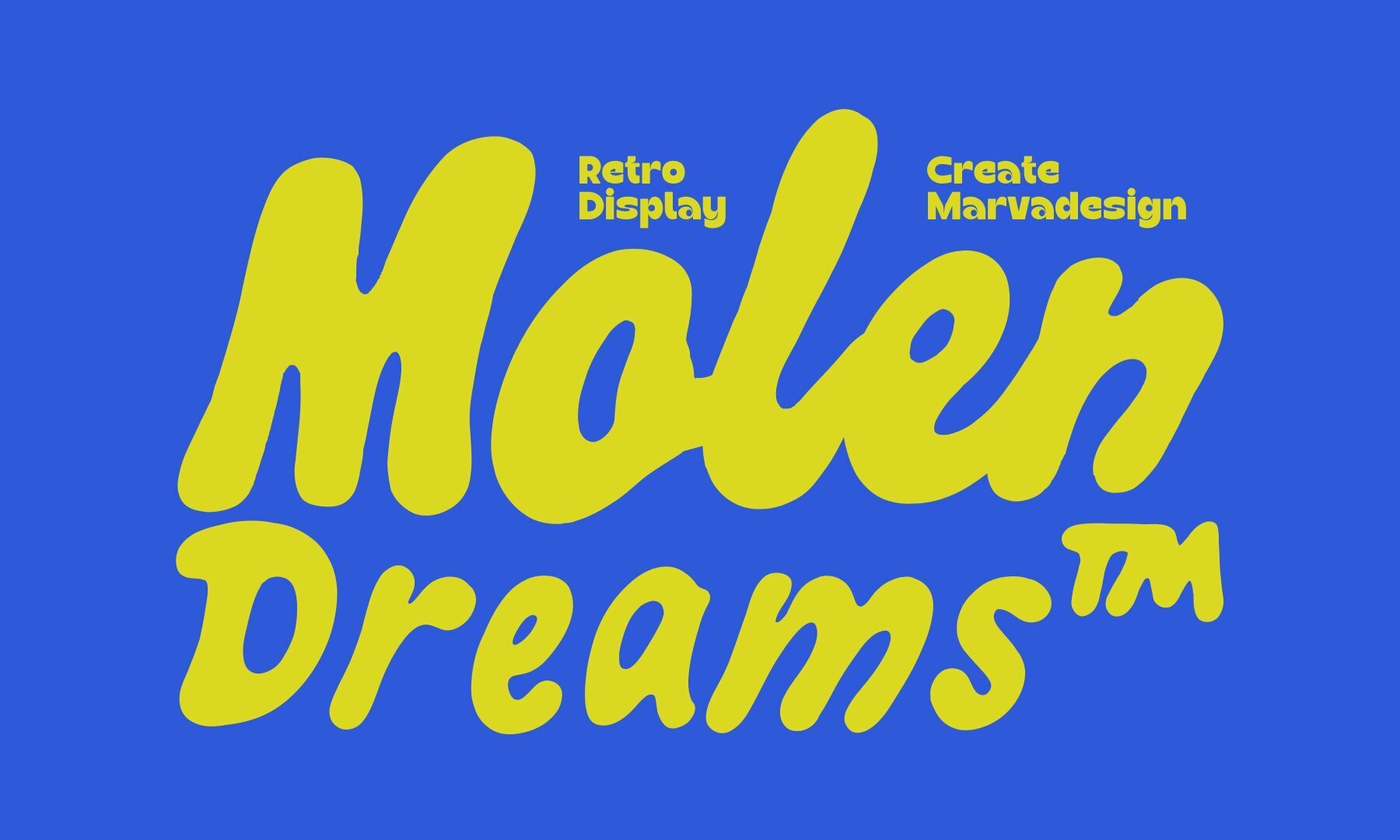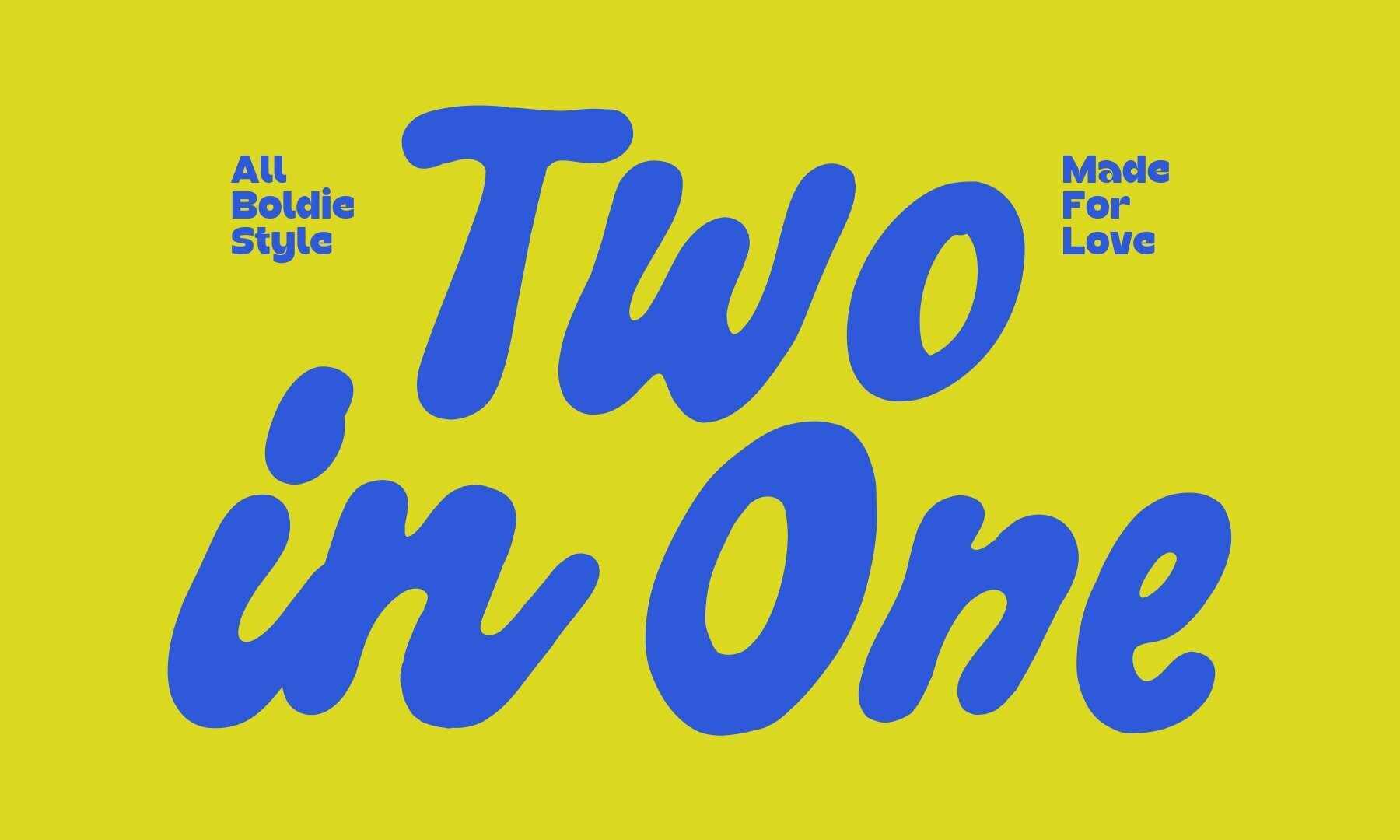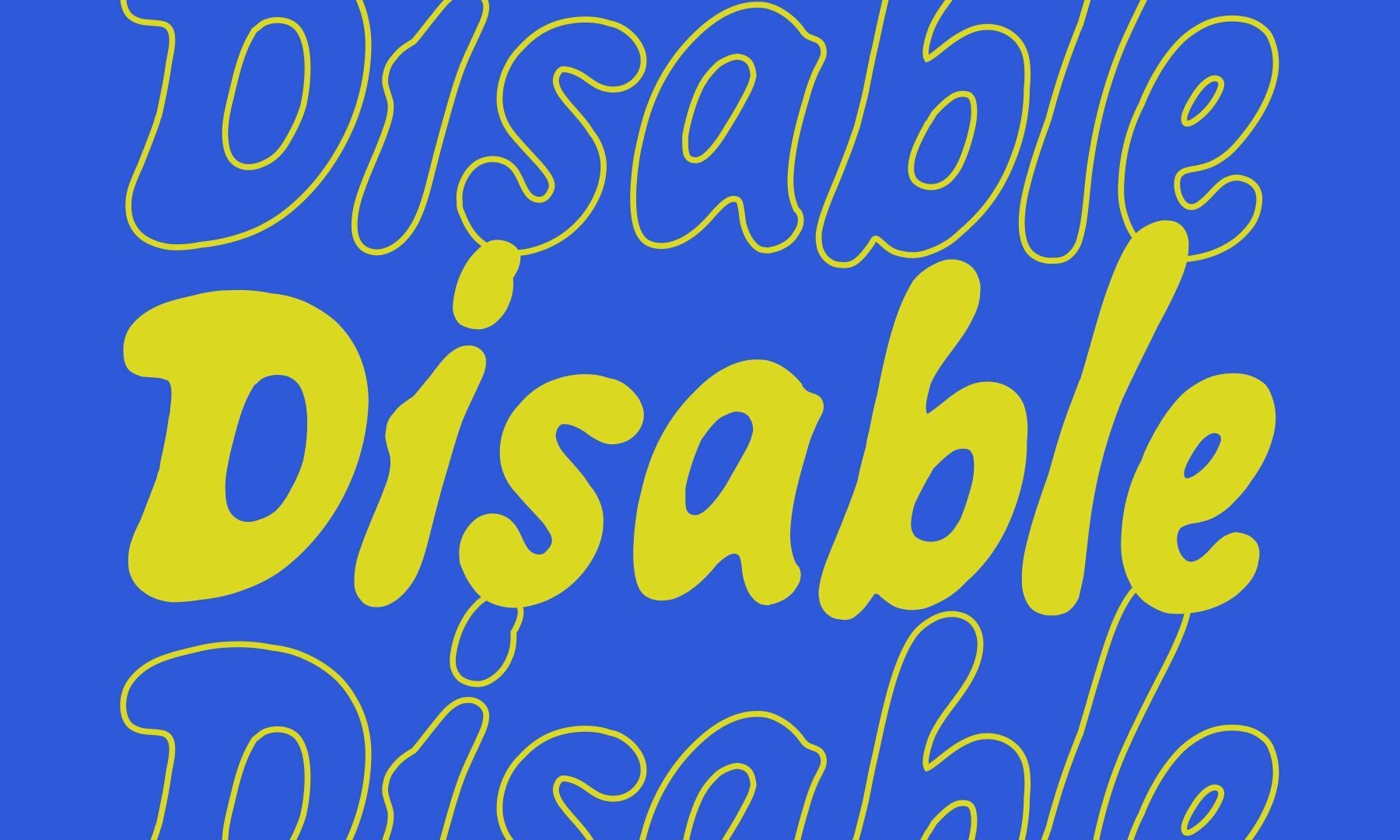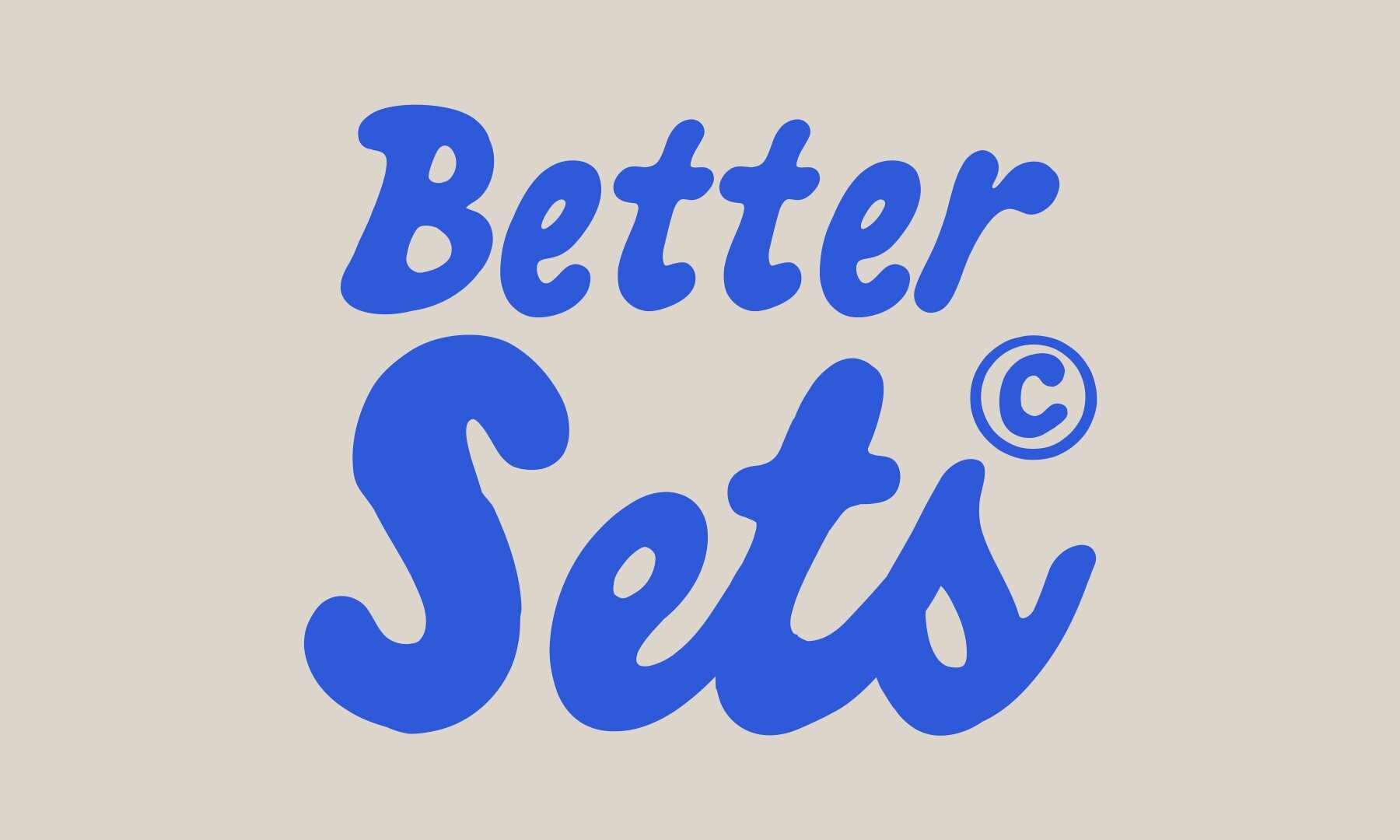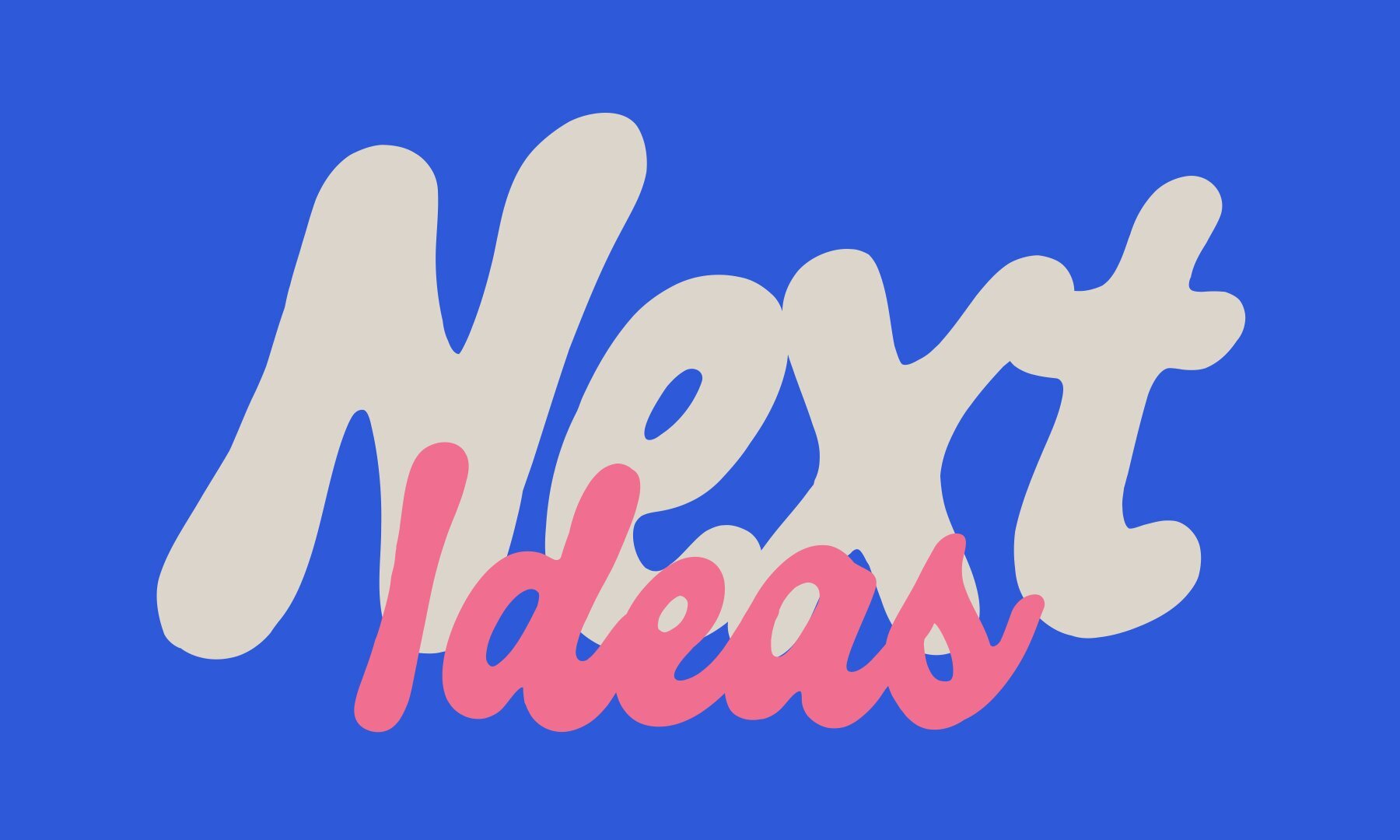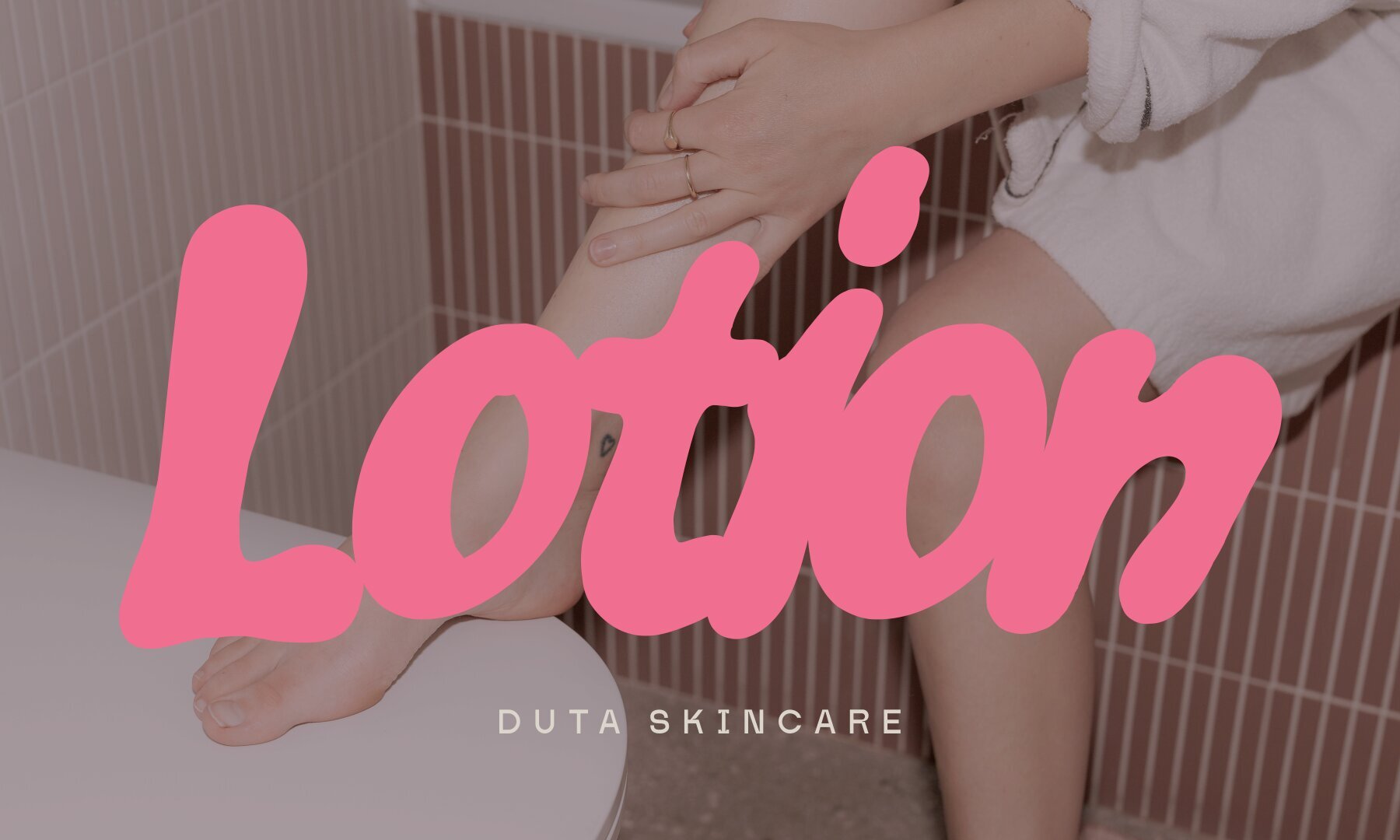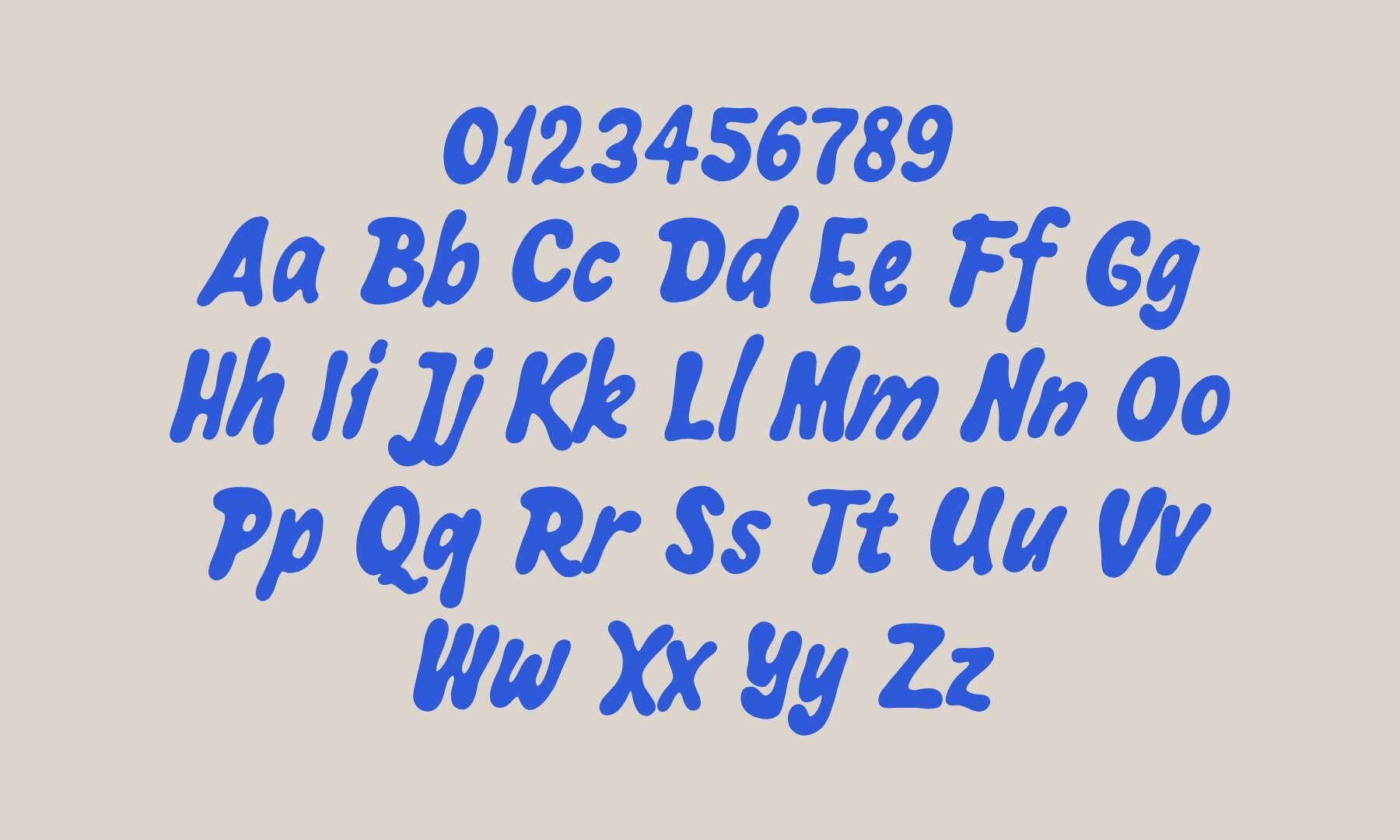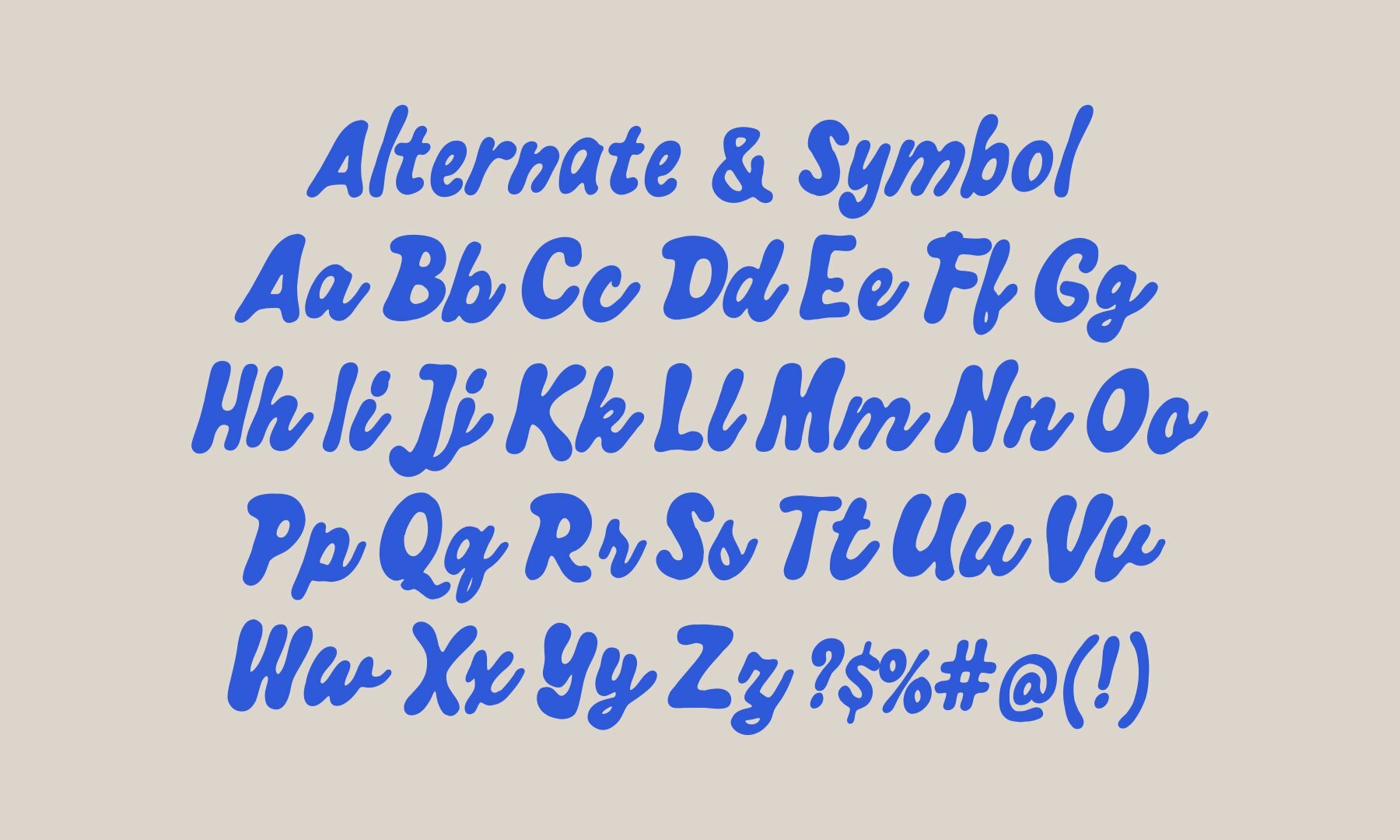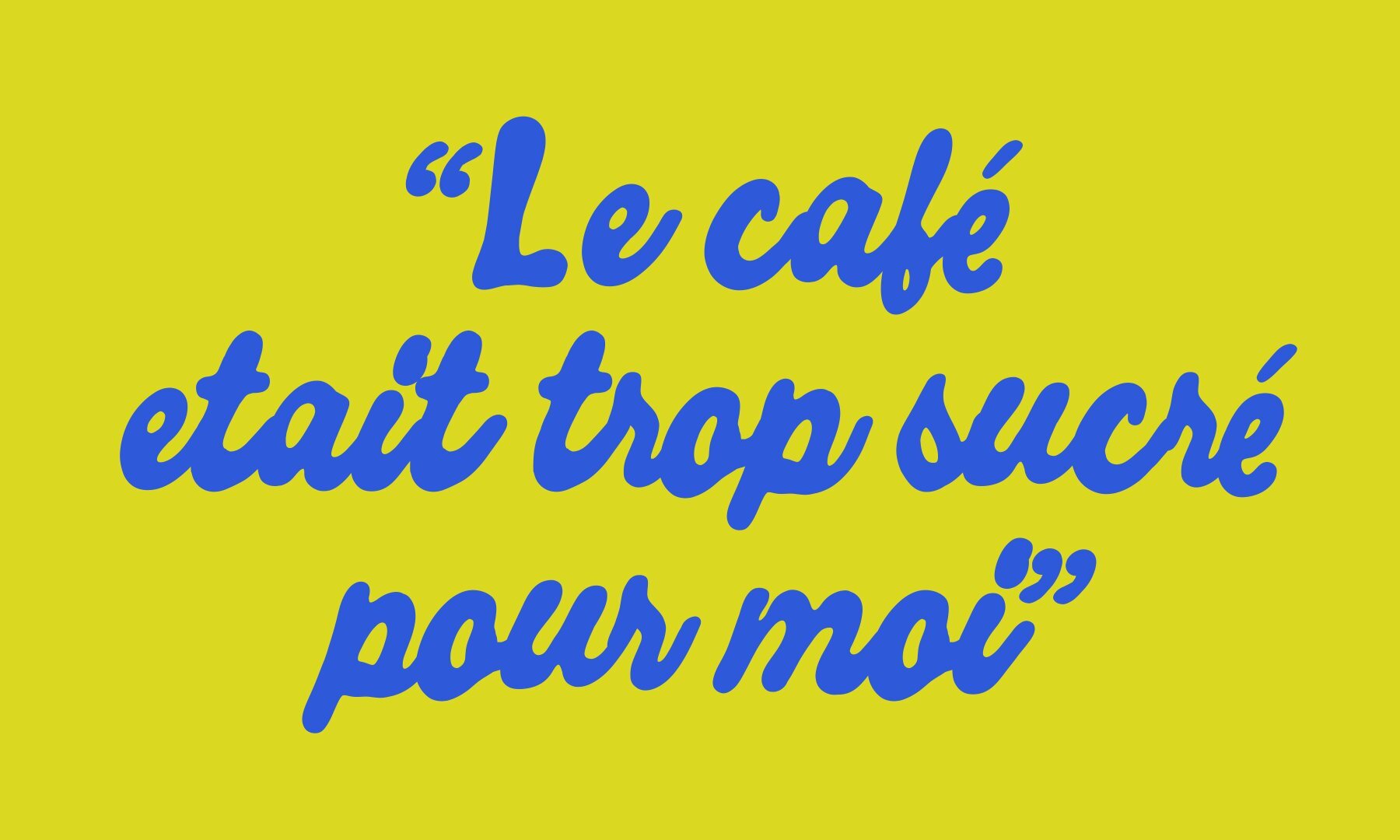
Molen Dream Font
Molen Dream
Molen Dream is a display typeface that brings a playful character to your design work. With smooth, rounded edges and exaggerated curves, this typeface marries a vintage flair with a modern spirit, evoking the friendly vibe of 70s pop culture and signage. Its bold letterforms and bubbly shapes make it a standout choice for eye-catching projects. Known for its versatile weight distribution, Molen Dream offers both a heavy, impactful style and a lighter, handwritten alternative. This dynamic typeface is perfect for branding, packaging, posters, and retro-themed visuals, capturing a nostalgic yet trendy aesthetic. It serves as an ideal choice for creators aiming for bold and optimistic typographic expression.Molen Dream: Playful Retro-Inspired Typeface